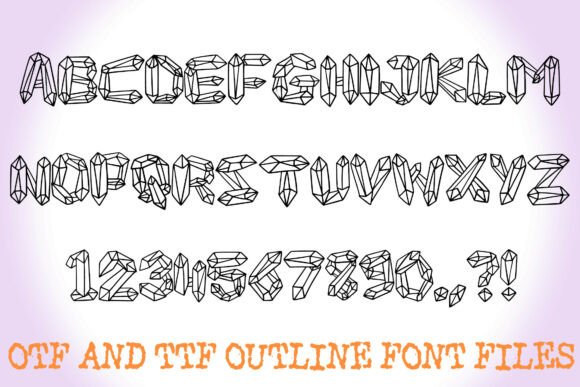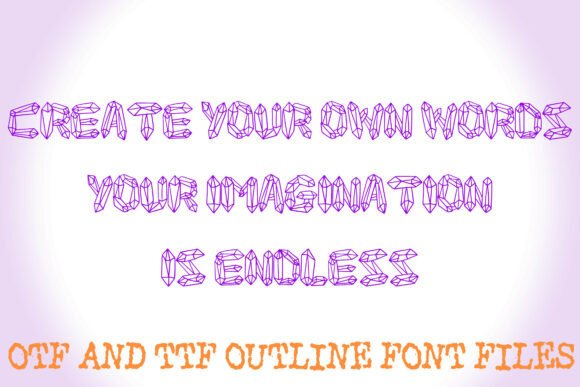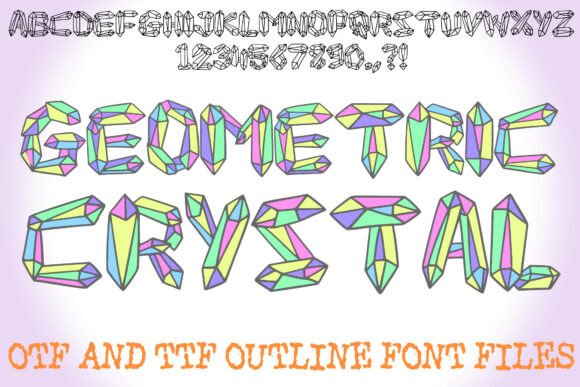
Unleash the Elegance of Geometric Crystal Font: A Sophisticated Display Typeface
In the realm of typography, few fonts manage to strike a balance between modernity, elegance, and sophistication. However, Geometric Crystal Outline stands out as a beacon of refined beauty, combining the precision of geometric shapes with the luxury of a faceted gemstone. This stunning display font is meticulously crafted to bring a touch of class and a bold, contemporary statement to any design project.
The Essence of Geometric Crystal Outline
Geometric Crystal Outline is more than just a collection of letters; it’s a piece of art that embodies the essence of a finely cut diamond. Each character is a masterpiece of precision, featuring a unique, crystalline outline that exudes luxury and sophistication. The font’s clean lines and sharp angles create a modern, minimalist aesthetic that is both captivating and elegant.
One of the defining features of Geometric Crystal Outline is its clear structure and unique form. The font’s geometric shape is reminiscent of a faceted gemstone, with sharp angles and clean lines that give it a modern and polished look. The crystalline outline of each character adds a level of sophistication and elegance, making it perfect for high-end branding, elegant logos, abstract posters, and modern magazine layouts.
Perfect for High-End Designs
Geometric Crystal Outline is ideal for designers and crafters who want to add a touch of luxury to their projects. Whether you’re crafting a minimalist website, designing luxury product packaging, or creating edgy social media graphics, this font is sure to make a lasting impression. Its bold, contemporary statement and polished aesthetic make it perfect for titles and headings where you want to leave a lasting impact.
One of the key benefits of Geometric Crystal Outline is its versatility. The font can be used in a variety of design projects, from high-end branding and elegant logos to abstract posters and modern magazine layouts. Its unique and captivating aesthetic makes it perfect for designers who want to create a bold and sophisticated look.
Why Choose Geometric Crystal Outline?
So, why choose Geometric Crystal Outline over other fonts? Here are a few compelling reasons:
- Sophistication and Elegance: The font’s unique, crystalline outline and geometric shape give it a level of sophistication and elegance that’s hard to find in other fonts.
- Modern and Minimalist Aesthetic: The font’s clean lines and sharp angles create a modern and minimalist aesthetic that’s perfect for designers who want to create a bold and contemporary look.
- Versatility: The font can be used in a variety of design projects, from high-end branding and elegant logos to abstract posters and modern magazine layouts.
- Perfect for Titles and Headings: The font’s clear structure and unique form make it perfect for titles and headings where you want to leave a lasting, polished impression.
Geometric Crystal Outline is a sophisticated and striking display font that’s perfect for designers and crafters who want to add a touch of luxury to their projects. Its unique, crystalline outline and geometric shape give it a level of sophistication and elegance that’s hard to find in other fonts. With its versatility, modern aesthetic, and polished look, Geometric Crystal Outline is sure to make a lasting impression in any design project.
Whether you’re a designer, crafter, or simply someone who appreciates the beauty of typography, Geometric Crystal Outline is a font that’s sure to captivate and inspire. So, why not unleash the raw elegance of a faceted gemstone in your next design project and experience the sophistication and luxury of Geometric Crystal Outline?